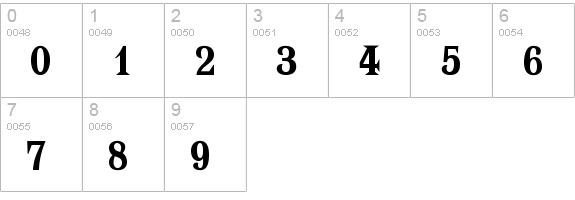
QuantumBoldCondensed Font Details
QuantumBoldCondensed is a striking and modern typeface that exudes confidence and style. Its condensed design allows for maximum impact, making it perfect for headlines, titles, and any other text that needs to command attention. The bold weight adds a touch of strength and boldness, making every word stand out on the page. This versatile font is suitable for a wide range of design projects, from branding and packaging to editorial layouts and digital designs. Its clean and sharp lines give it a contemporary feel, while its subtle curves add a touch of elegance. Whether you're designing a logo, creating a poster, or crafting a website, QuantumBoldCondensed will make your text come alive. One of the best things about QuantumBoldCondensed is that it is freely available to download at FontsMarket.com. This means that you can easily access this font and start using it in your projects without any hassle or additional costs. FontsMarket.com offers a wide selection of high-quality fonts, and QuantumBoldCondensed is just one of the many options available. With QuantumBoldCondensed, you can add a touch of sophistication and modernity to your designs. Its bold and condensed form will make your text pop, while its clean and contemporary design will ensure that your message is conveyed with clarity and impact. Download QuantumBoldCondensed today from FontsMarket.com and elevate your designs to a whole new level.